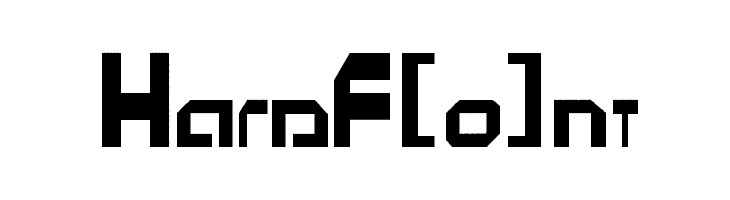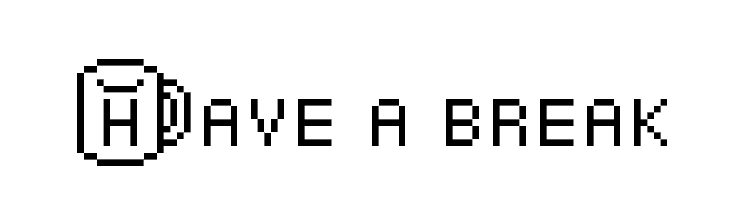
( Area 031 - web.archive.org/web/20020121193136/www.geocities.com/sunsetstrip/club/8011/fonts.html )
A bold, geometric font with square and circular elements, ideal for modern designs.
( Fonts by Colorful Typhoon - http://orange.s56.xrea.com/blog/ )
A bold, angular font with a rough, edgy design.
( Fonts by Dieter Schumacher )
A bold, geometric font with a modern and futuristic style.
( Fonts by Dieter Schumacher )
A geometric, angular font with square letterforms and uniform line thickness.
( Fonts by Dieter Schumacher )
A geometric, thin-stroked font with a modern, square design.
( Fonts by Omega Font Labs )
A bold, decorative font with a blackletter influence, featuring ornate curves and sharp angles.
( Fonts by Omega Font Labs )
A bold, dramatic font with sharp, angular strokes and intricate detailing.
( Fonts by Omega Font Labs )
A bold, gothic-inspired font with intricate details and a medieval flair.
( Fonts by Omega Font Labs )
A decorative, hollow font with intricate curves and sharp angles.
( Fonts by Omega Font Labs )
An ornate and decorative font with intricate details and dramatic flair.
( Fonts by Omega Font Labs )
An elegant, gothic-inspired font with sharp lines and decorative flourishes.
( Fonts by Boba Fonts )
A bold, futuristic font with sharp angles and a sci-fi aesthetic.
( Fonts by Boba Fonts )
A futuristic, geometric font with hollow, outlined letterforms.
( Fonts by Boba Fonts )
A bold, futuristic font with geometric shapes and sharp angles, perfect for sci-fi themes.
( Fonts by Boba Fonts )
A bold, geometric font with a futuristic sci-fi aesthetic.
( Fonts by Boba Fonts )
A bold, geometric font with a futuristic, sci-fi style.
( Fonts by Boba Fonts )
A bold, futuristic outline font with a sci-fi aesthetic.
( Boba Fonts - web.archive.org/web/20000823041207/207.153.208.174/multimedia/bobafonts/ )
A bold, futuristic font with rounded edges and a sci-fi aesthetic.
( Fonts by Dieter Schumacher )
A bold, decorative font with characters encased in starburst shapes.
( Fonts by Dieter Steffmann )
A bold, decorative font with a starburst pattern filling each character.
A bold, futuristic font with sharp, angular design elements.
( Fonts by www.houseoflime.com )